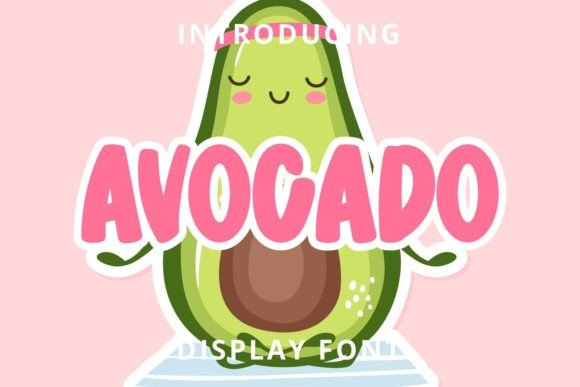
Introducing Avocado Font, a stunning display font that exudes boldness and quirkiness in equal measure. Designed by the talented Nicetrip7, this font family is guaranteed to bring your creative projects to life with its unique style and character.
Whether you're looking to add a touch of playfulness to your branding, or you want to make your designs pop with personality, Avocado Font is the perfect choice. Its friendly feel and eye-catching aesthetic make it incredibly versatile, able to adapt to a wide range of contexts and creative ideas.
With Avocado Font, you'll be able to create truly one-of-a-kind designs that stand out from the crowd. Whether you're working on a logo, a poster, a social media graphic, or any other creative project, this font family is sure to elevate your work and make it shine.
What's more, Avocado Font is designed to be easy to use and customize. With a range of weights and styles to choose from, you can find the perfect fit for your project and make it truly your own. And with its extensive character set, including multilingual support, you can be sure that your message will be communicated loud and clear, no matter where your audience is located.